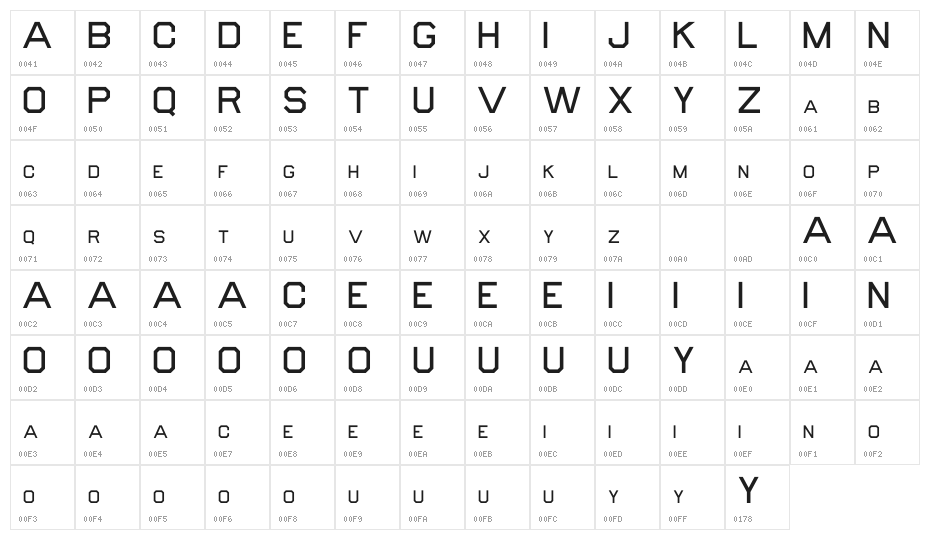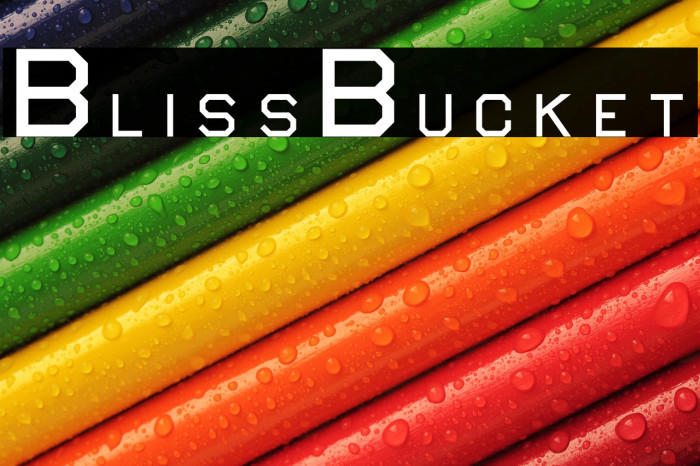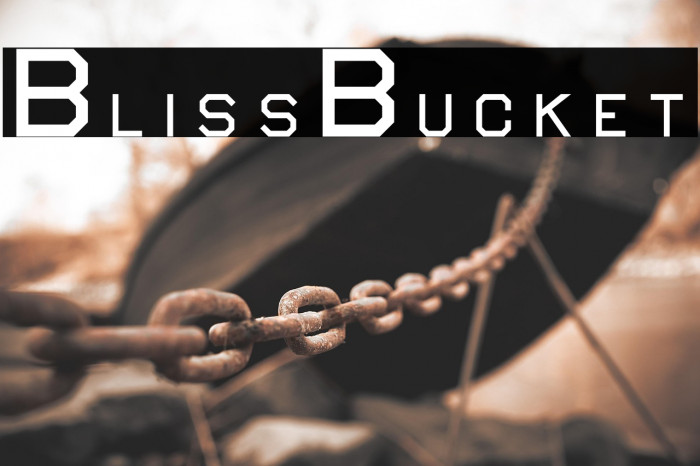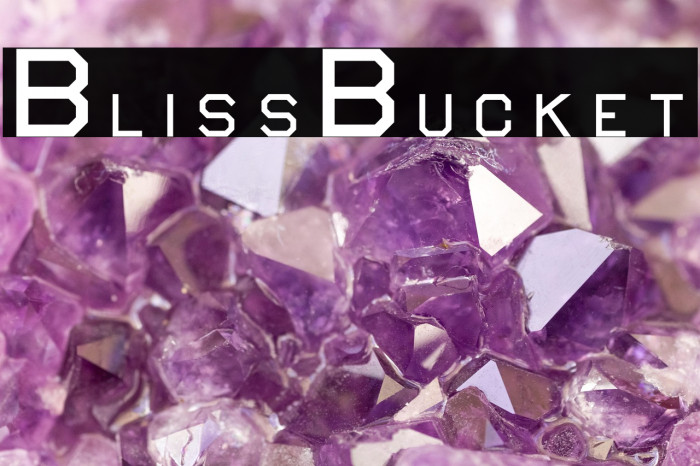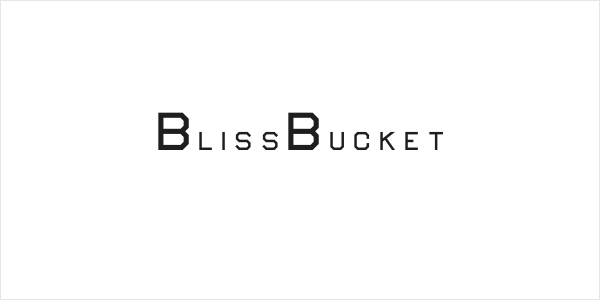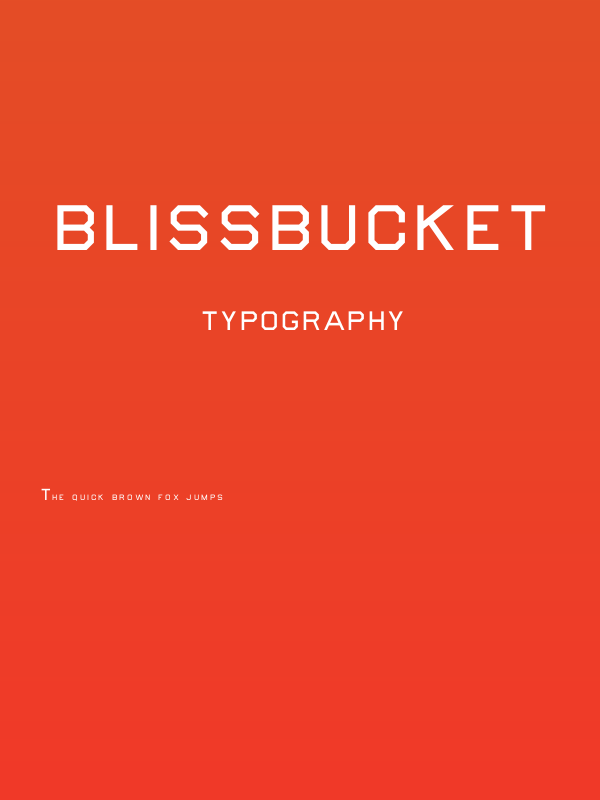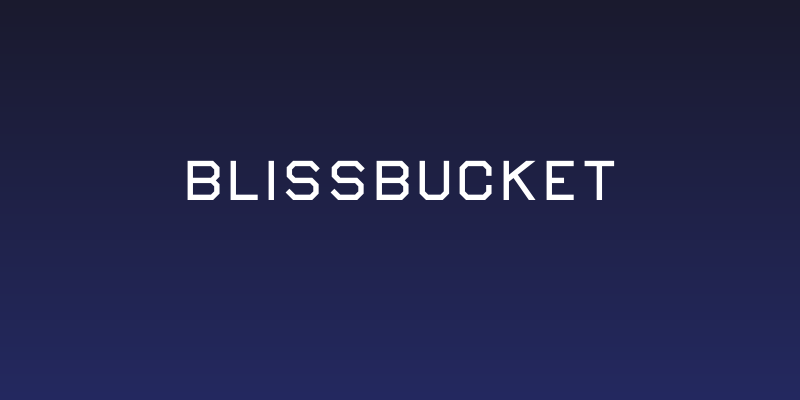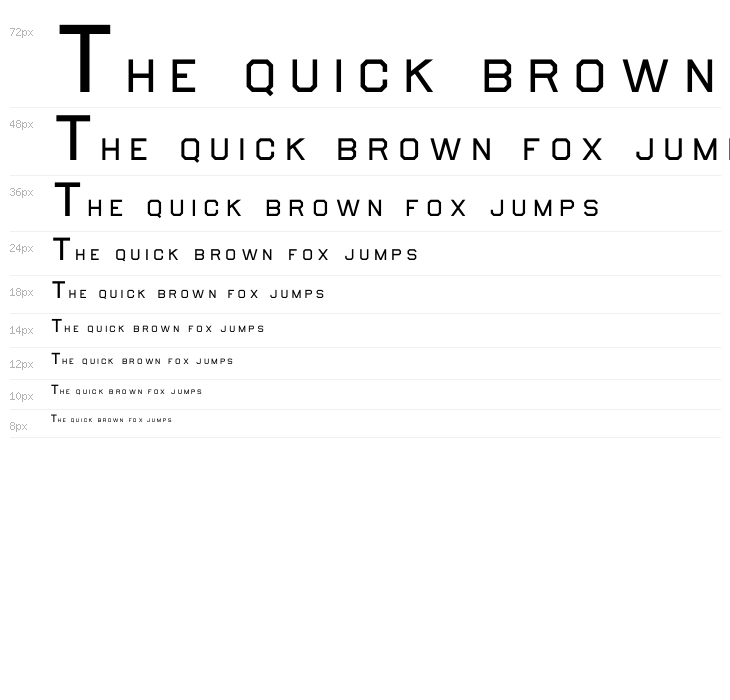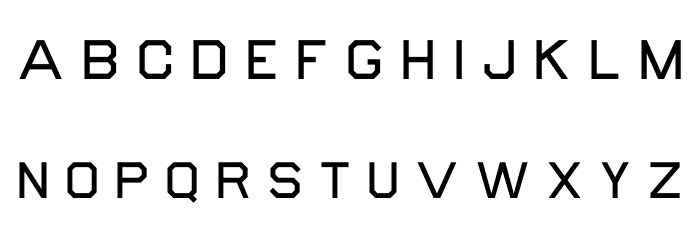
BlissBucket Font
BlissBucket Description
This font features a geometric and structured design, characterized by its octagonal shapes and clean lines. The uppercase letters exhibit a bold presence with sharp angles and uniform stroke widths, giving them a modern and industrial feel. The lowercase letters maintain the same geometric style, ensuring consistency across the typeface. The numbers and special characters follow the same design principles, making the font versatile for various applications. Its distinct style makes it suitable for projects that require a strong and contemporary aesthetic.